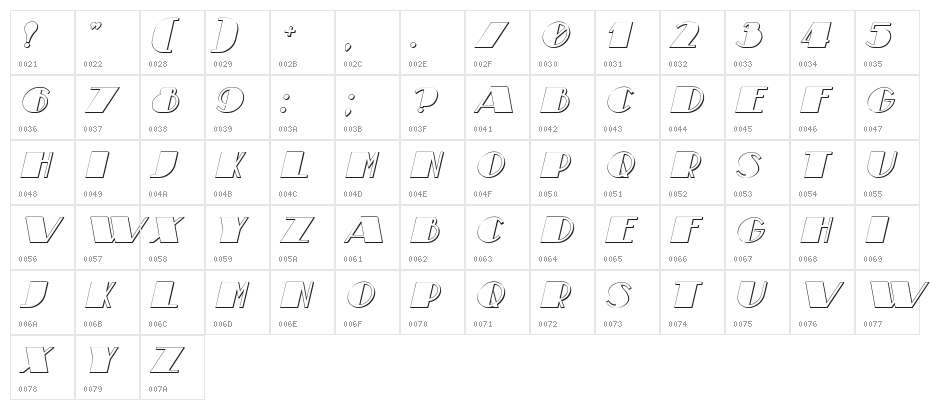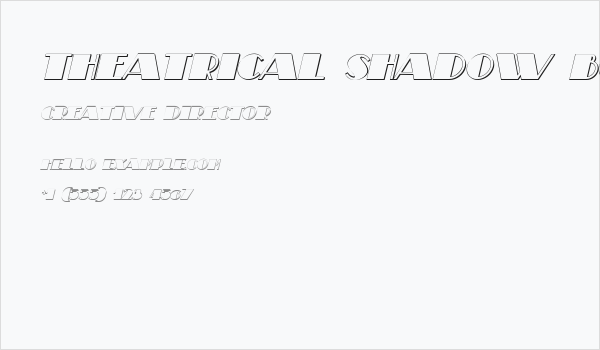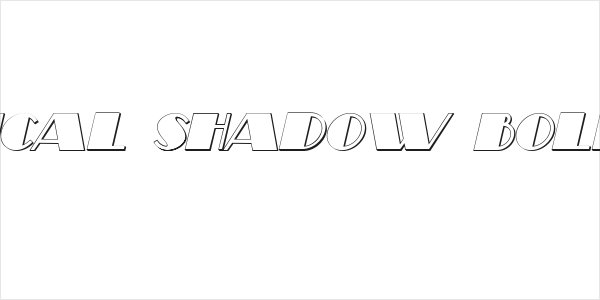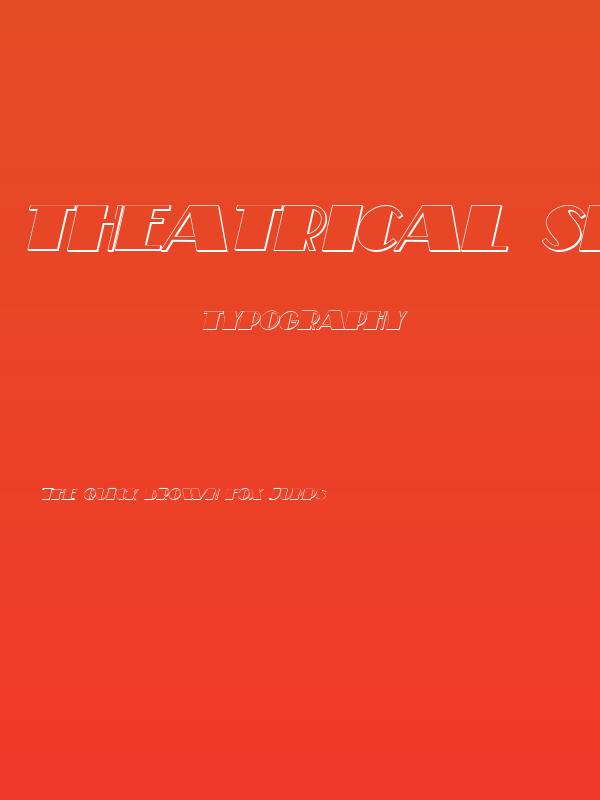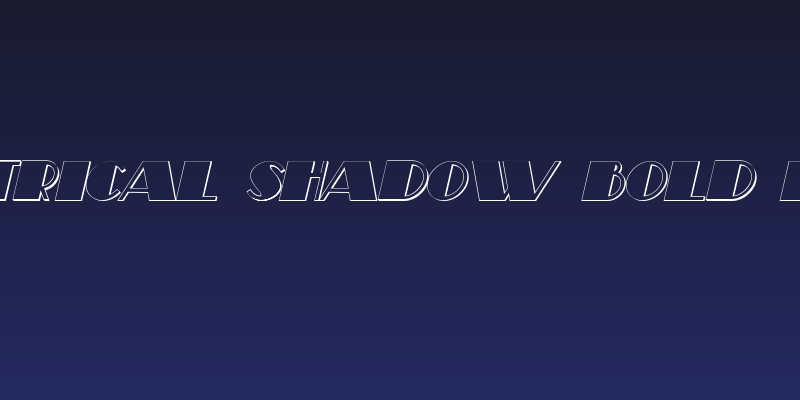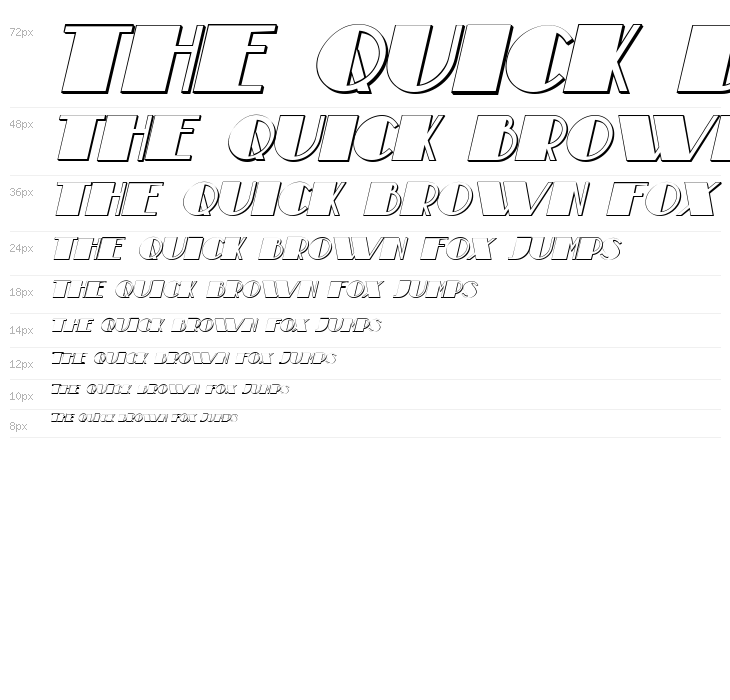
Theatrical Shadow Bold Italic Font
Theatrical Shadow Bold Italic Description
This font features a bold and italicized style with a distinctive shadow effect that gives it a three-dimensional appearance. The characters are uppercase and lowercase letters, along with numbers and a selection of special characters. The design is characterized by its thick strokes and angled lines, creating a dynamic and eye-catching look. The shadow effect adds depth and a sense of movement, making it suitable for dramatic and impactful visual presentations. The font's boldness and italic slant contribute to its theatrical and expressive nature, ideal for headlines and titles that require a strong visual presence.
| Proposed Projects | Ideal for theatrical posters, bold headlines, and creative branding projects. |